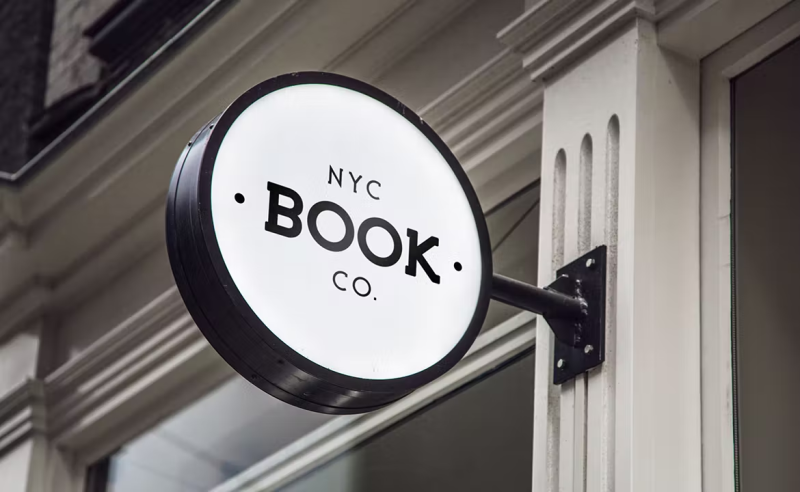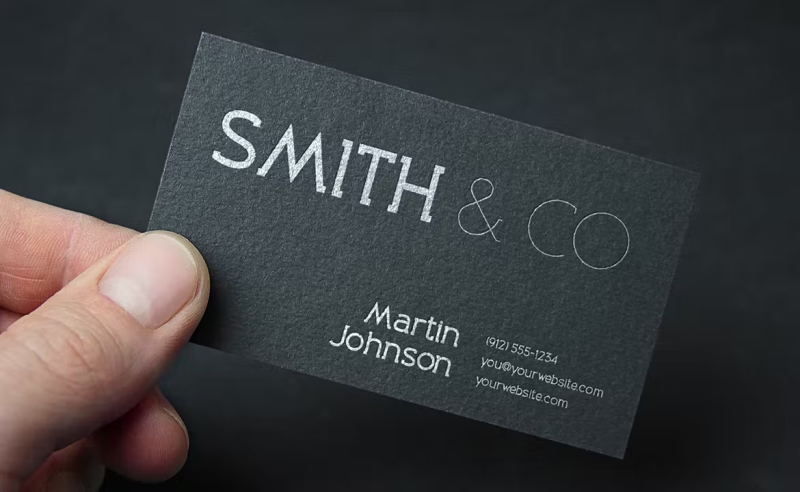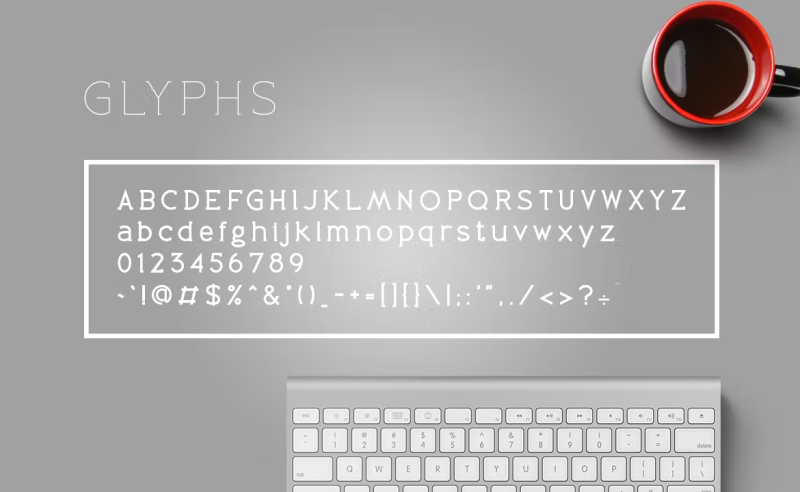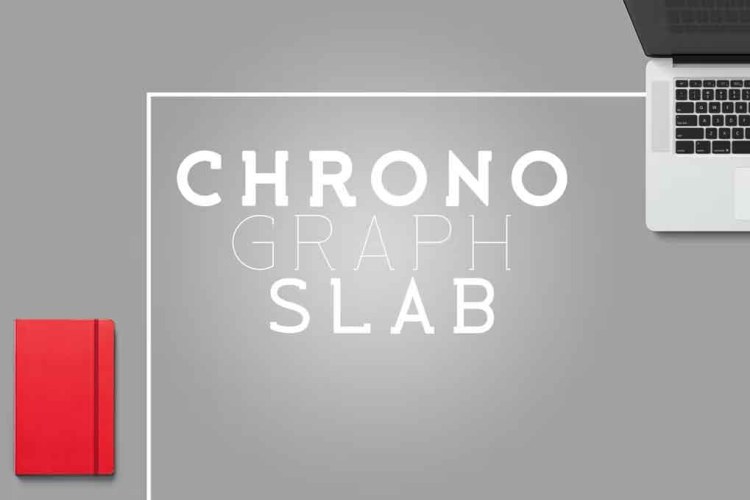
Chronograph Slab Font
Chronograph Slab is clean & vintage look typeface that really nice used for headline, logo, poster and many more. It comes with three styles including in this package : Bold, Regular & Light
Where Chronograph Slab Font works best
Chronograph Slab Font keeps its shape at 14 and 16 pixels, which is where interface text actually lives. Numbers and capitals stay distinguishable in tables.
Presentations are read at a distance; a clean sans with a strong bold is the safest hierarchy you can build in a hurry.
Simple letterforms survive angles, glare and movement, so Chronograph Slab Font suits door signs, menus boards and exhibition panels.
What kind of work does Chronograph Slab Font suit?
It sits in the Sans Serif Fonts group and reads as bold, branding, clean, sans serif. That makes it a candidate wherever those qualities help: headings, packaging, social graphics and brand work. Set it at the size you plan to use before deciding.